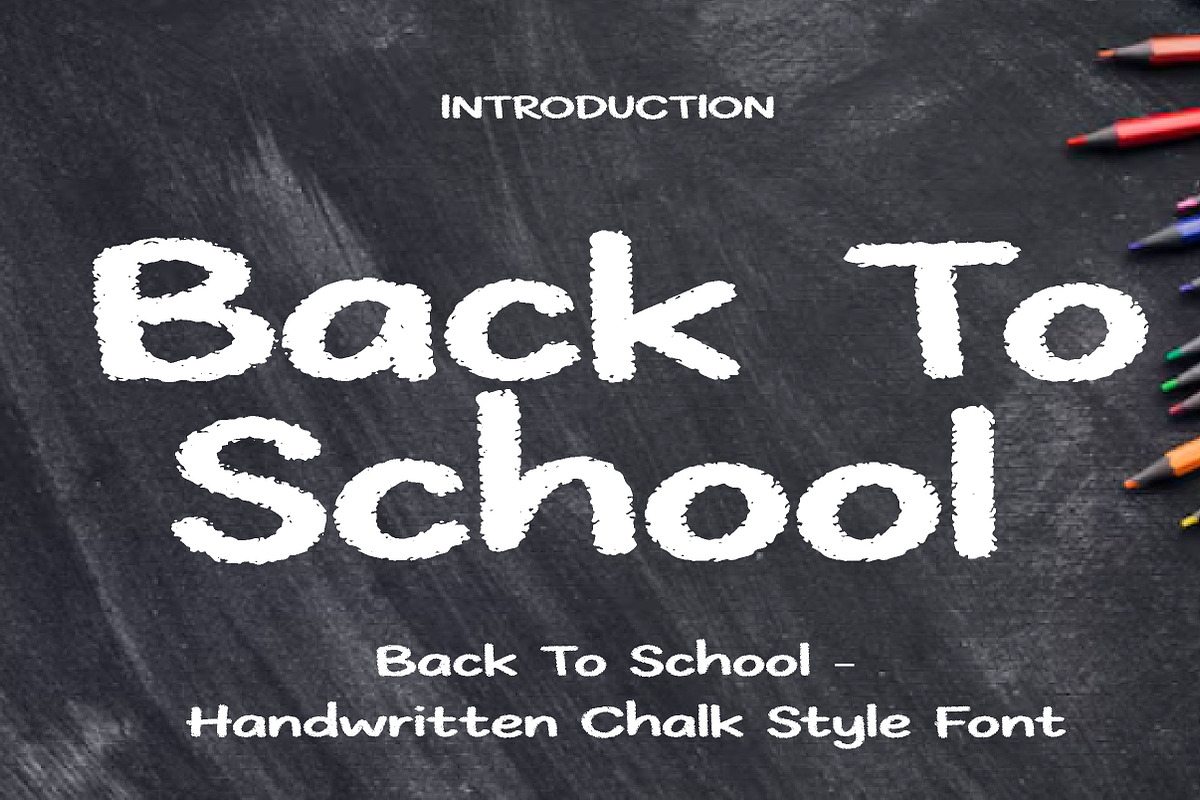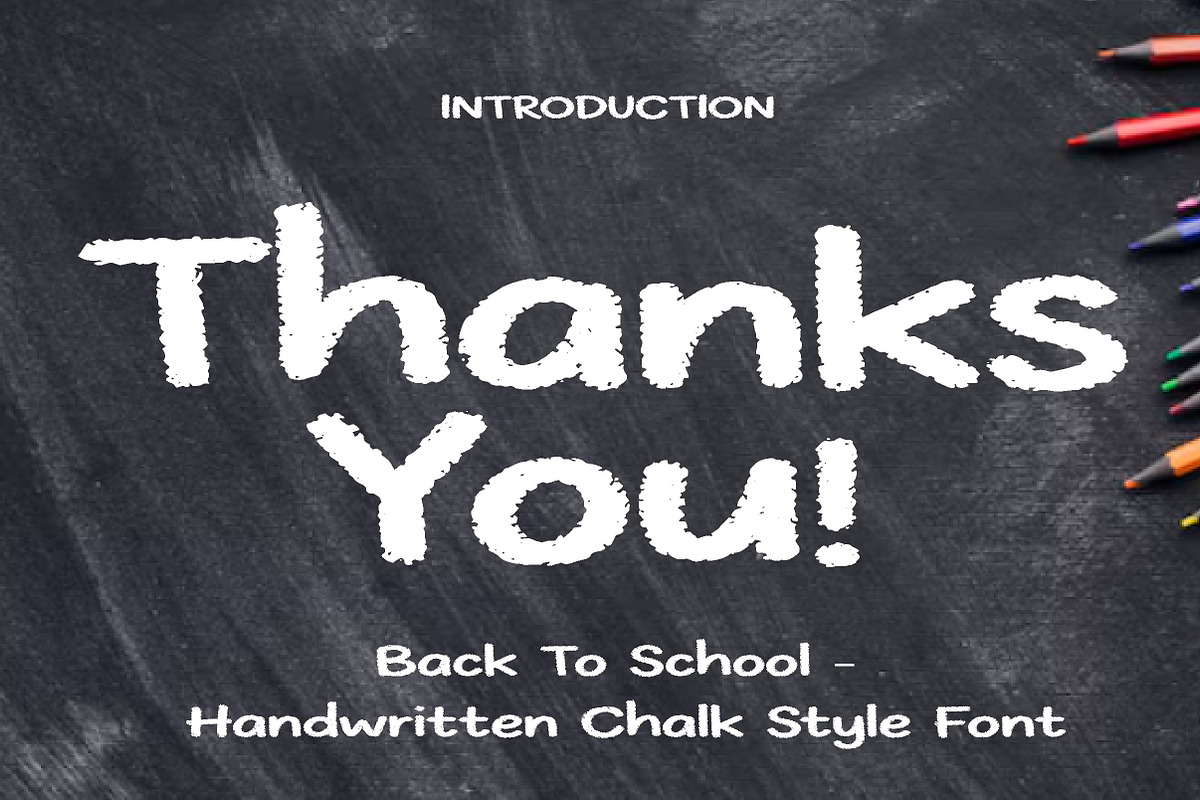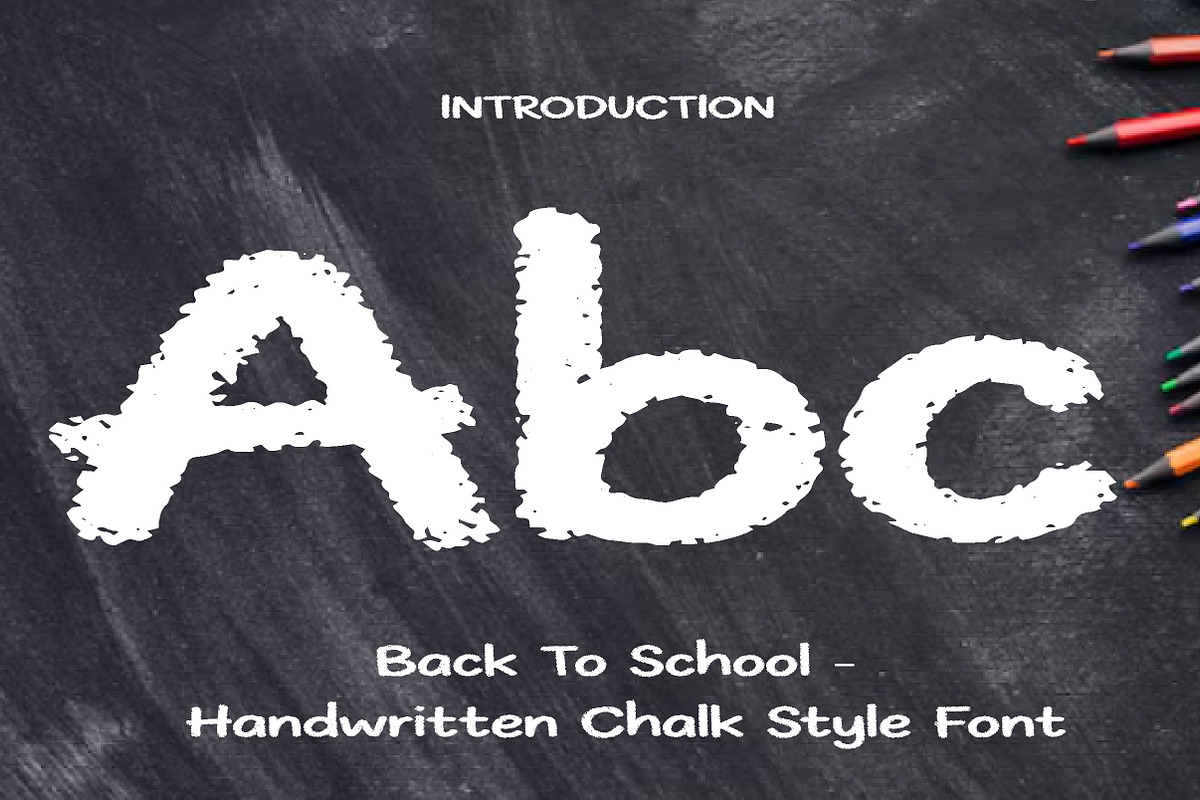
Back To School
Back To School – Handwritten Chalk Style Font
Short Description
Back To School is a fun, textured, and handwritten chalk-style font, perfect for school designs, educational projects, posters, branding, and creative classroom themes.
Full Description
Back To School is a playful handwritten font inspired by chalkboard writing, designed to bring an authentic classroom feel into your designs. With its rough texture, slightly uneven strokes, and natural handwritten look, this font creates a fun and nostalgic school-style appearance.
Its chalk-like texture makes Back To School perfect for projects that need an educational and creative touch. Whether you are designing classroom posters, school branding, worksheets, kids projects, educational materials, social media graphics, or themed invitations, this font helps your typography feel engaging, friendly, and full of personality.
The textured style adds a realistic handwritten effect while maintaining readability, making it suitable for both print and digital use. Back To School is an excellent choice for designers who want a font that feels fun, casual, and classroom-inspired.
Perfect For School and educational materials Classroom posters Worksheets and printables Kids projects Back-to-school designs Social media graphics Invitations and flyers Chalkboard-style designs Creative learning visuals Casual display typography Font Features Uppercase letters Lowercase letters Numbers & punctuation Handwritten chalk style Rough textured strokes Natural and playful look Perfect for display use